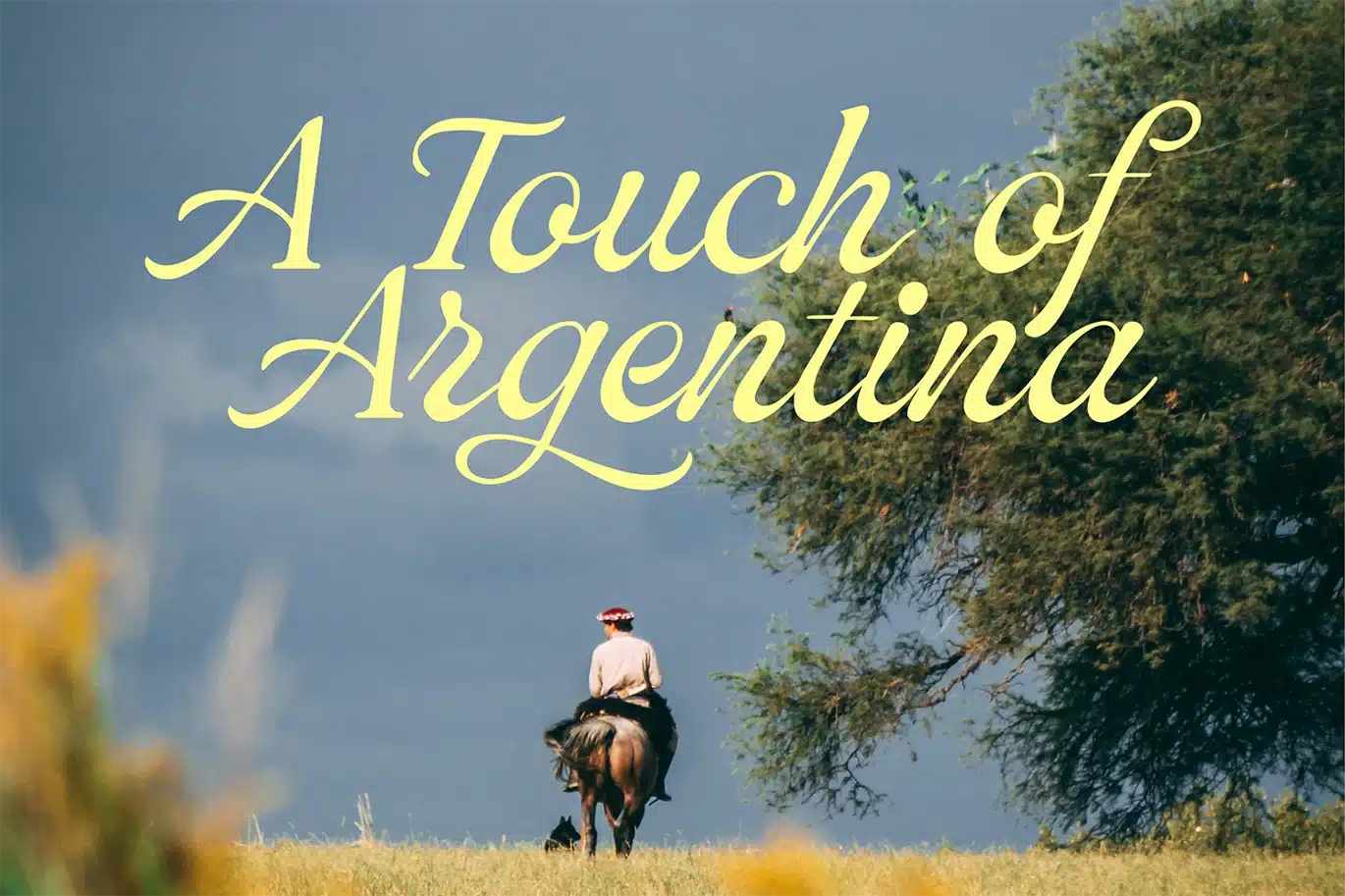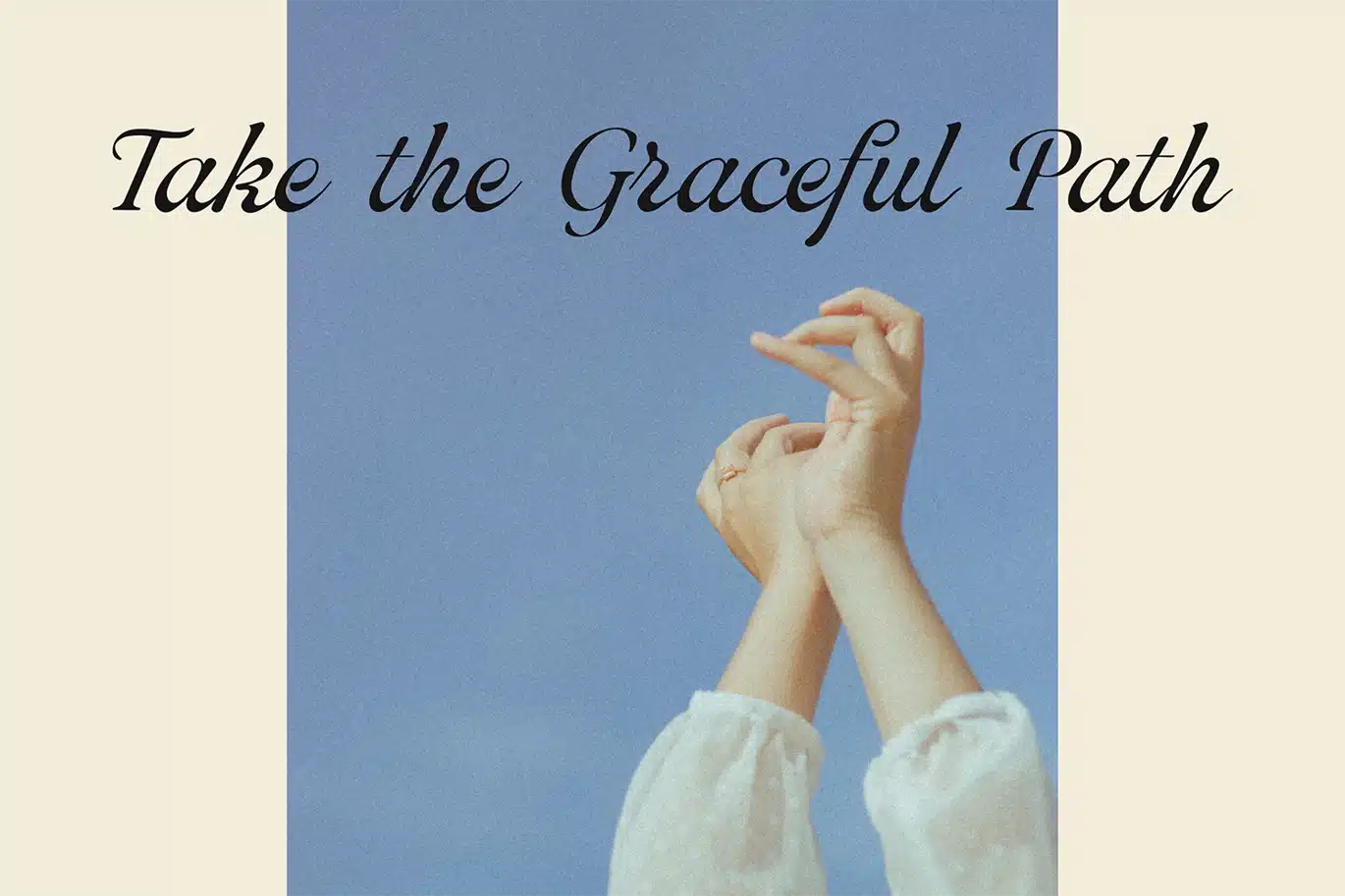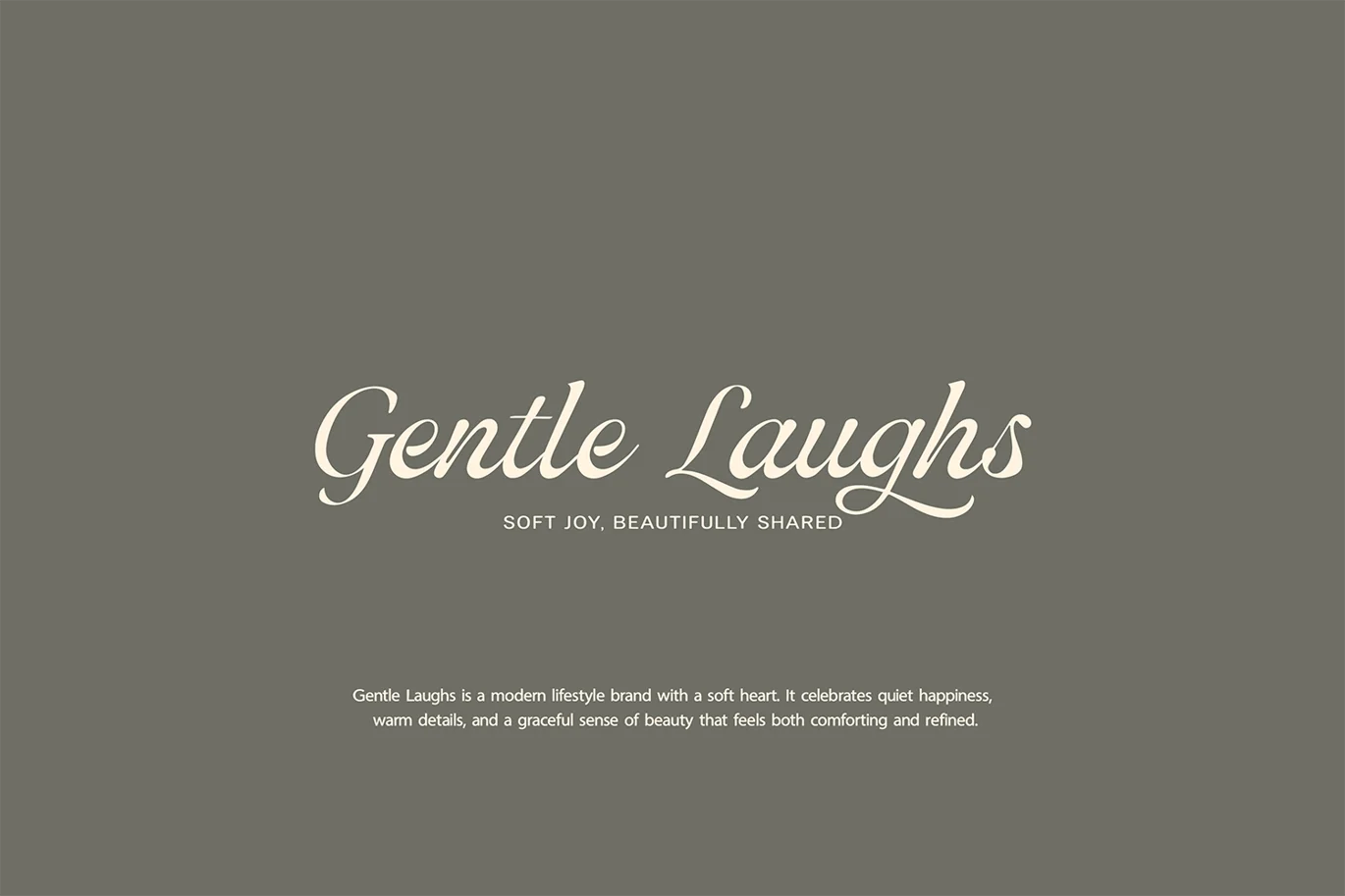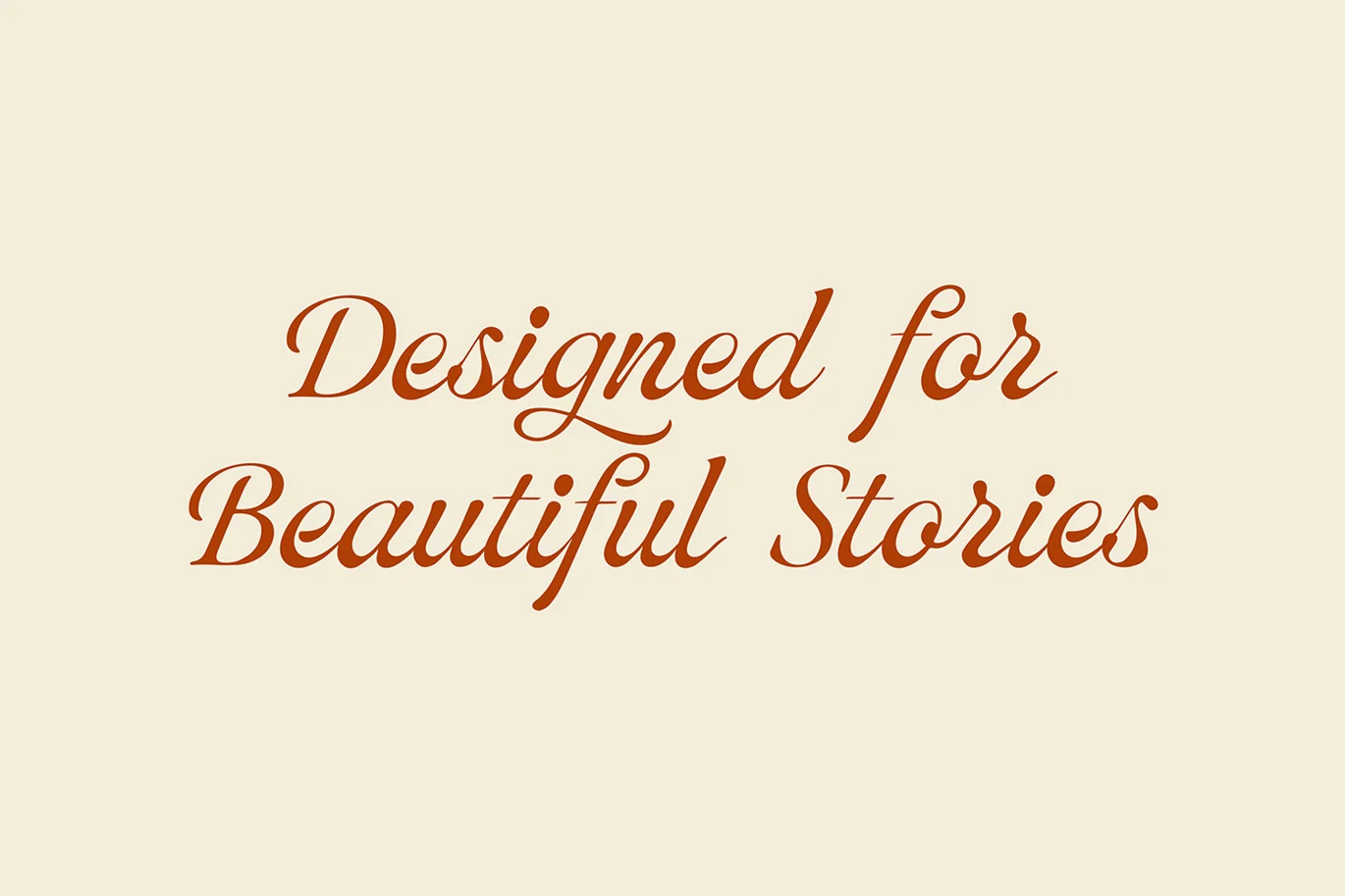
Bellagio Script Font
Bellagio is a refined script font with romantic charm, created for elegant, feminine, and timeless design. With its graceful curves, flowing strokes, and polished handwritten style, Bellagio brings a soft luxury feel to every project.
Perfect for branding, logos, wedding stationery, packaging, social media content, editorial layouts, quotes, and beautiful visual storytelling, Bellagio is designed to make every word feel stylish, graceful, and memorable.